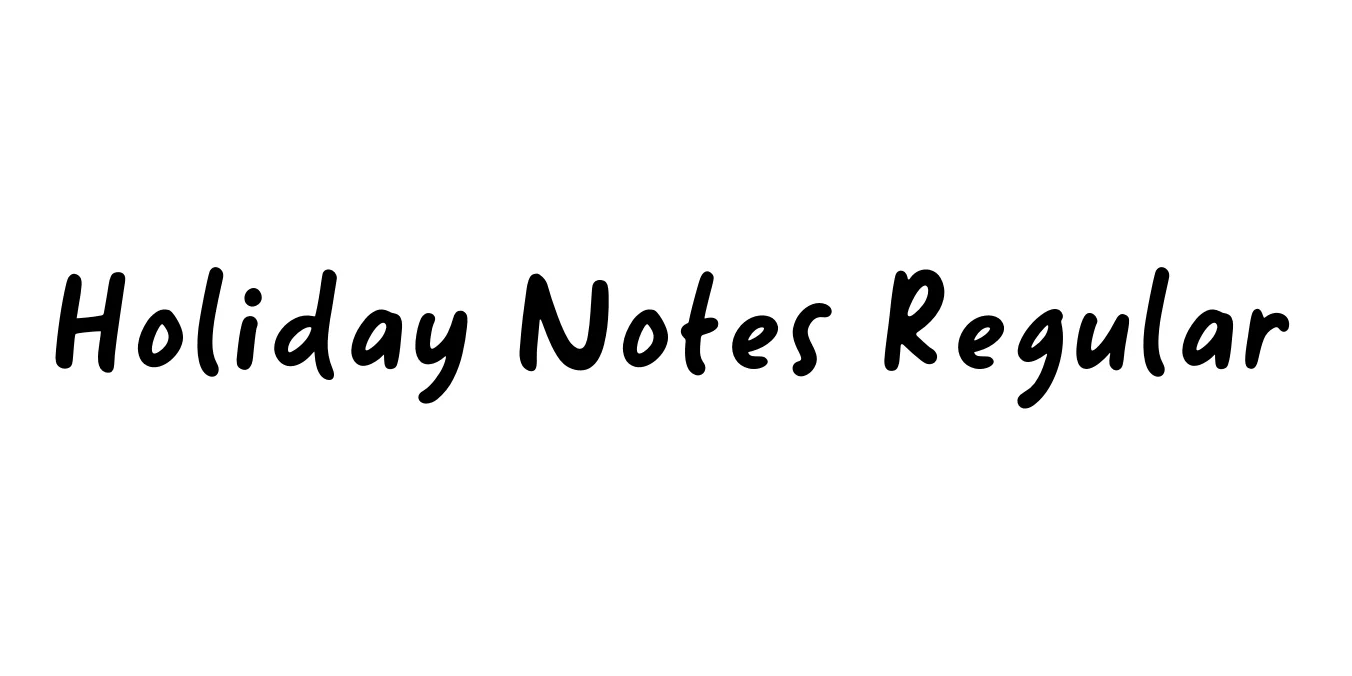
Holiday Notes Regular
Designed by I Made Deduk (Lettersiro)
Holiday Notes Regular is a charming and casual script font that perfectly captures the essence of spontaneous handwriting. Designed by I Made Deduk of Lettersiro, this typeface features fluid, organic strokes that mimic the appearance of personal notes scribbled in a travel journal or on the back of a holiday postcard. Its relaxed nature and imperfect lines give it a high degree of authenticity and warmth.
This typeface is particularly effective for projects that require a human touch or a rustic, DIY aesthetic. Whether used for digital scrapbooking, branding for boutique businesses, or personalized stationery, Holiday Notes Regular maintains a consistent flow and legibility that makes it a favorite among designers looking for a friendly and approachable script style.
Holiday Notes Regular Best Uses
Perfect for creating aesthetic Instagram quotes and casual story layouts.
Adds a personal, hand-penned touch to RSVP cards and envelope addresses.
Ideal for lifestyle brands, travel blogs, and organic product packaging.
Great for scrapbooking, greeting cards, and digital planning.